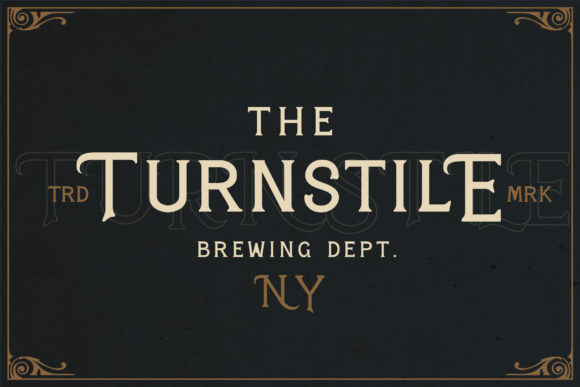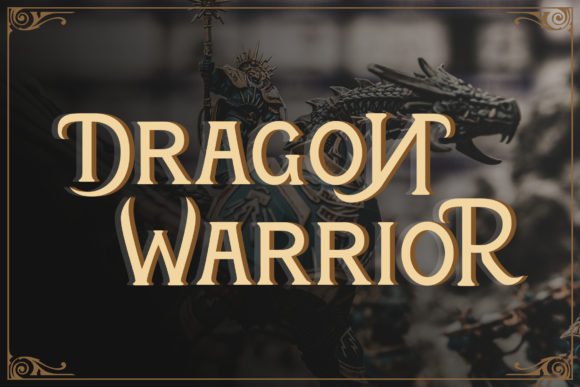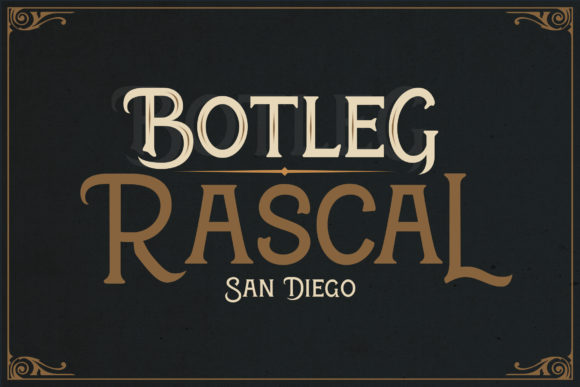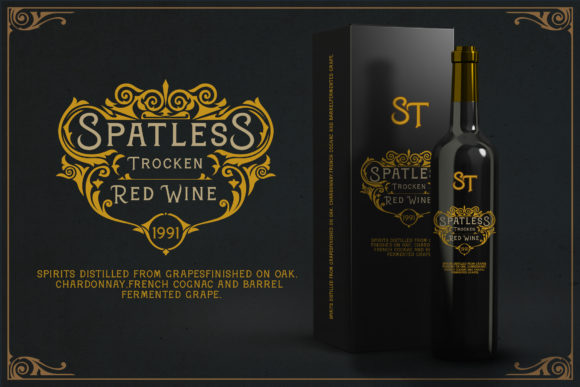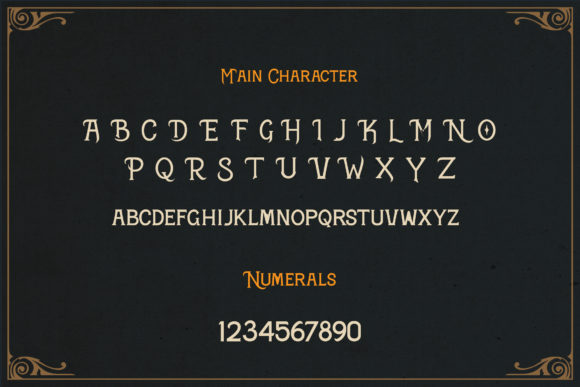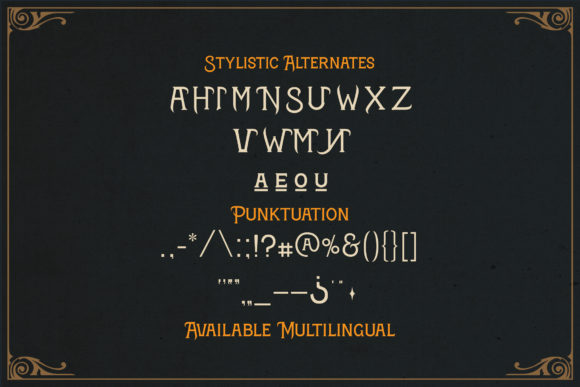
Introduction to North Dragon Font
North Dragon feels playfully nostalgic and delivers an incredible vintage aesthetic.
Use it to add that special retro touch to any design idea you can think of .
Key Features of North Dragon Font